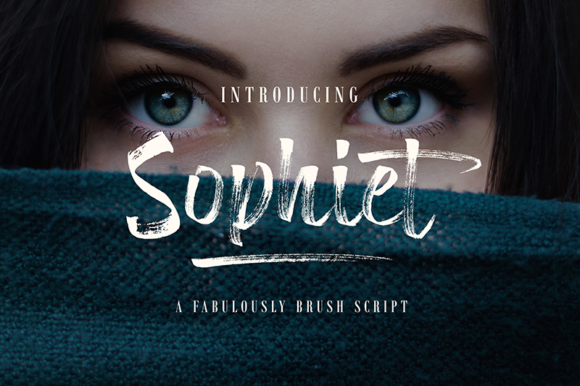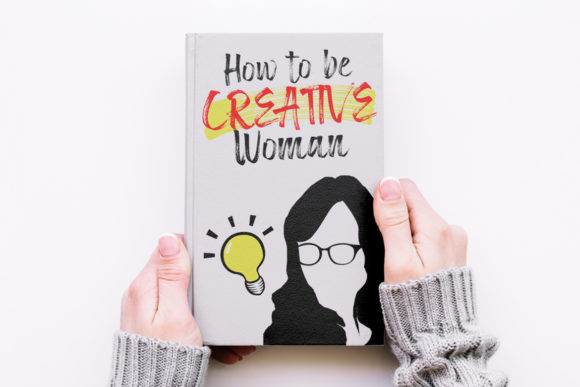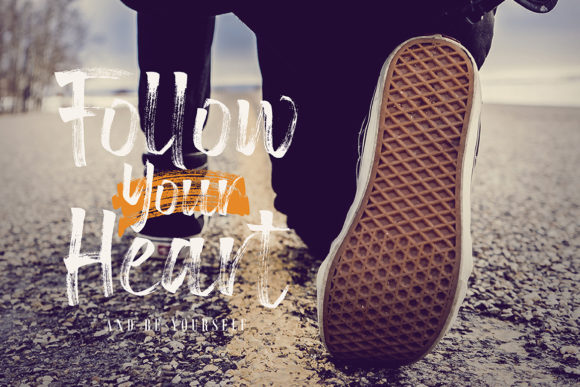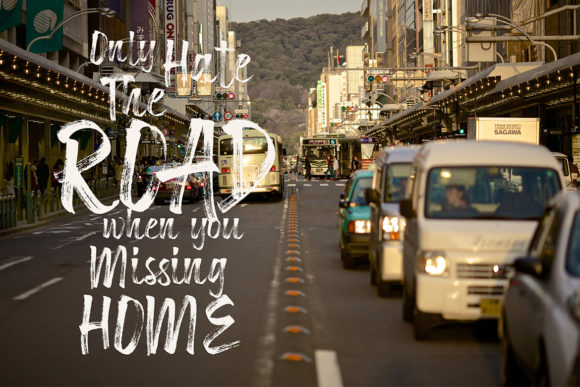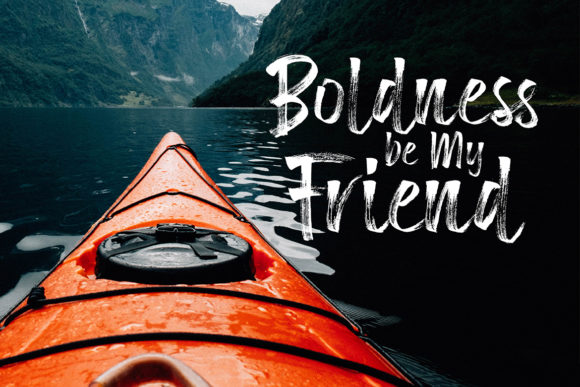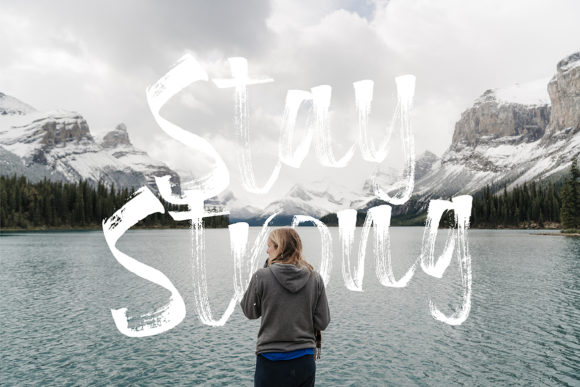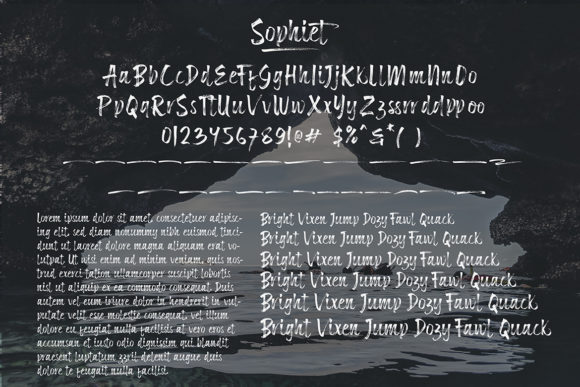
HomeScript FontsSophiet Font Script Fonts Sophiet Font FacebookXPinterestWhatsApp Sophiet Font Poster 2 Sophiet Font Poster 3 Sophiet Font Poster 4 Sophiet Font Poster 5 Sophiet Font Poster 6 Sophiet Font Poster 7 About Sophiet Font Sophiet is a stunning brush font with a bold feel. It will add an authentic touch to any creative project! DOWNLOAD ON CREATIVE FABRICAThis font is sold and delivered by Creative Fabrica. Font Canyon may earn a commission if you buy through this link. People also explored Melody Vintage Font Just Smile Pacific Coast Sunday Rain Font Gradium Font Corazon Bren Easysans Font Vacation Monogram Font 420 0 TagsSophiet Font Previous articleBrittney Script FontNext articleDelimax Font LEAVE A REPLY Cancel reply Comment: Please enter your comment! Name:* Please enter your name here Email:* You have entered an incorrect email address! Please enter your email address here Website: Save my name, email, and website in this browser for the next time I comment. Personal Use Free Sweet Someday Personal Use Free Read more about this font Bajt Rounded Personal Use Free Read more about this font Hashira Mt Personal Use Free Read more about this font Good Times Personal Use Free Read more about this font BLOG To increase your work productivity, choose the most readable fonts. In today's fast-paced work environment, where digital communication and information consumption are integral to our daily routines, the choice of fonts can significantly impact... Fonts That Capture the Spirit of New York City Best Fonts for YouTube Videos: Make Your Thumbnails Stand Out Free vs Paid Fonts: Why Investing in Premium Fonts Is Worth It